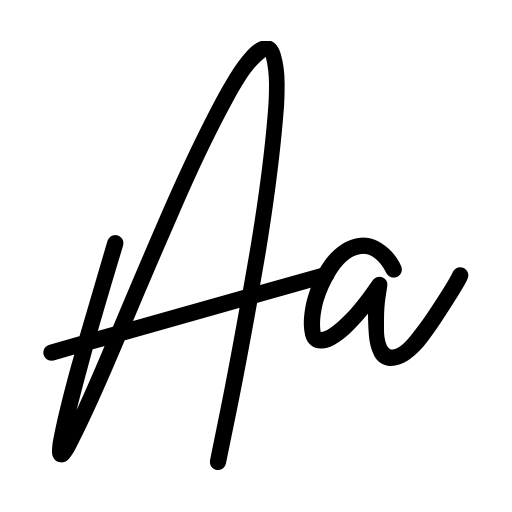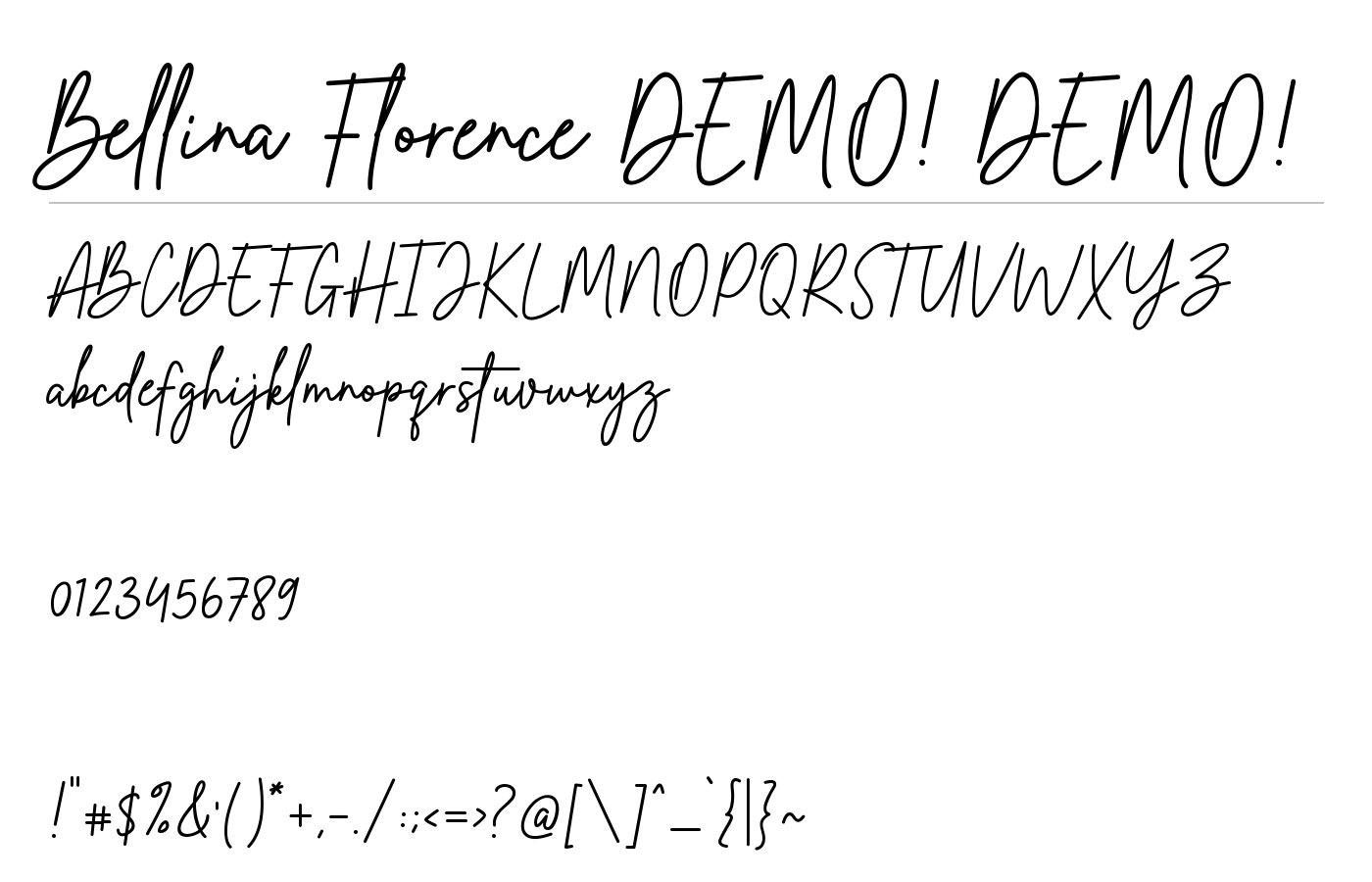
Bellina Florence DEMO! is a delicate, handwritten script font with a light weight and airy feel, featuring tall, narrow letterforms with a subtle bounce that adds charm and personality. Its smooth, flowing strokes evoke a casual yet elegant style, making it perfect for fashion branding, invitations, and creative projects that seek a personal, artistic touch. This font shines in headlines, logos, and decorative text where a refined, approachable look is desired.
Bellina Florence DEMO! Font
About Bellina Florence DEMO! Font
| Font family | Bellina Florence DEMO! Font |
| Designer | Picky Labs Studio |